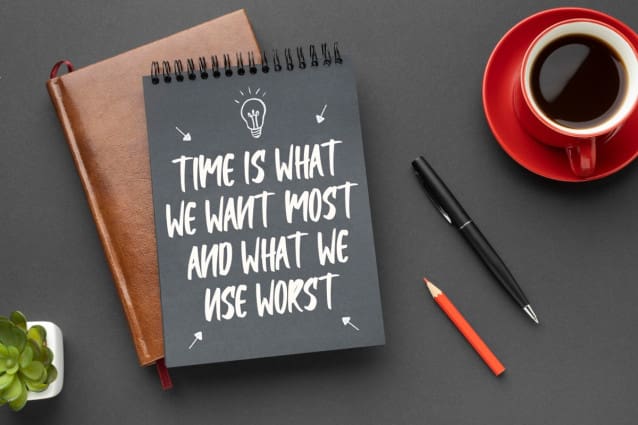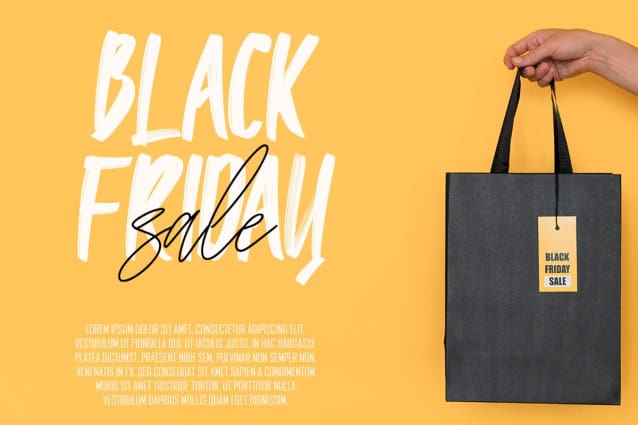
Markiss Brush Font
Markiss Brush Font was inspired by the Handwritten of natural brushes. Written in quick motion using a brush pen, it’s a bit dry and looks realistic..